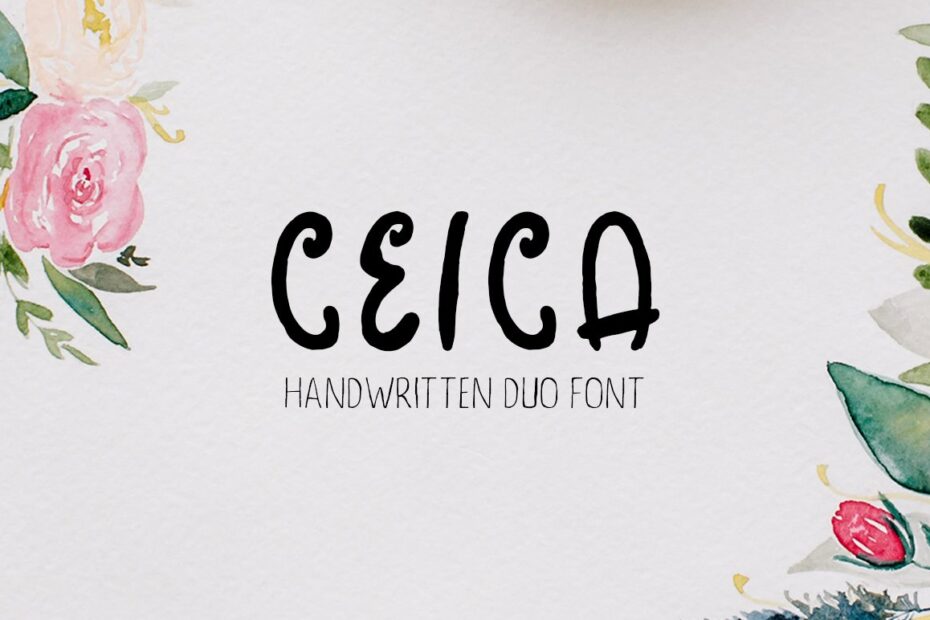
The Art of Handwritten Perfection: Unlocking the Beauty of Ceica Duo Font
As a designer, there’s nothing quite like the thrill of creating something that truly speaks to your audience. Maybe it’s a social media post that perfectly captures the essence of a brand, or a logo that tells a story all on its own. Whatever it is, you know that the right font can make all the difference. That’s why we’re excited to introduce you to the Ceica Duo Font, a stunning dual handmade brush script font that’s sure to elevate your designs to the next level.
With its beautiful, handwritten style and versatile range of characters, the Ceica Duo Font is the perfect choice for designers looking to add a touch of personality to their projects. Whether you’re creating a romantic wedding invitation or a bold brand identity, this font is sure to deliver. Its wide-set spacing and elegant design make it a standout choice for all caps designs, while its lowercase characters add a touch of whimsy and charm. The result is a font that’s both timeless and trendy, perfect for designers who want to make a statement.
Ceica Duo Font Key Features
- Font Family: Ceica Duo Font offers two font families: Ceica Duo and Ceica Duo Script, providing a wide range of styles for various design needs.
- Unique Characteristics: Ceica Duo Font features a unique blend of modern and traditional elements, with intricate details and elegant lines, making it perfect for creating high-end designs.
- Script and Ligatures: The font includes a wide range of script and ligature options, allowing designers to create complex and intricate text arrangements.
- Language Support: The font supports multiple languages, including Latin, Cyrillic, and Greek alphabets, making it a versatile choice for global design projects.
Designer Review: Ceica Duo Font
When I first laid eyes on the Ceica Duo Font, I was immediately drawn to its modern and sleek aesthetic. The font’s clean lines and subtle curves make it a great choice for a wide range of design projects. ✨
One of the standout features of Ceica Duo is its versatility. It comes in a range of weights and styles, from light and elegant to bold and dramatic, making it easy to use in everything from logos to body text. ✨ The font’s high x-height also makes it easy to read, even at small font sizes.
- ⚠️ The font’s legibility can be affected by the choice of color and background. In certain combinations, the font can become difficult to read.
- ⚠️ The font’s lack of distinct personality can make it feel generic or unoriginal in certain design contexts.
Overall, I would say that Ceica Duo is a solid choice for designers looking for a clean and modern font. While it may not be the most exciting or original font, it gets the job done and is easy to work with. With a little creativity and experimentation, Ceica Duo can add a touch of sophistication to even the most mundane design projects.
Use Ceica Duo Font for titles and headings to add a touch of elegance to your designs.
Pair Ceica Duo Font with a sans-serif font for body text to create a clean and modern look.
Use Ceica Duo Font for:
Brand logos and identity
Product labels and packaging